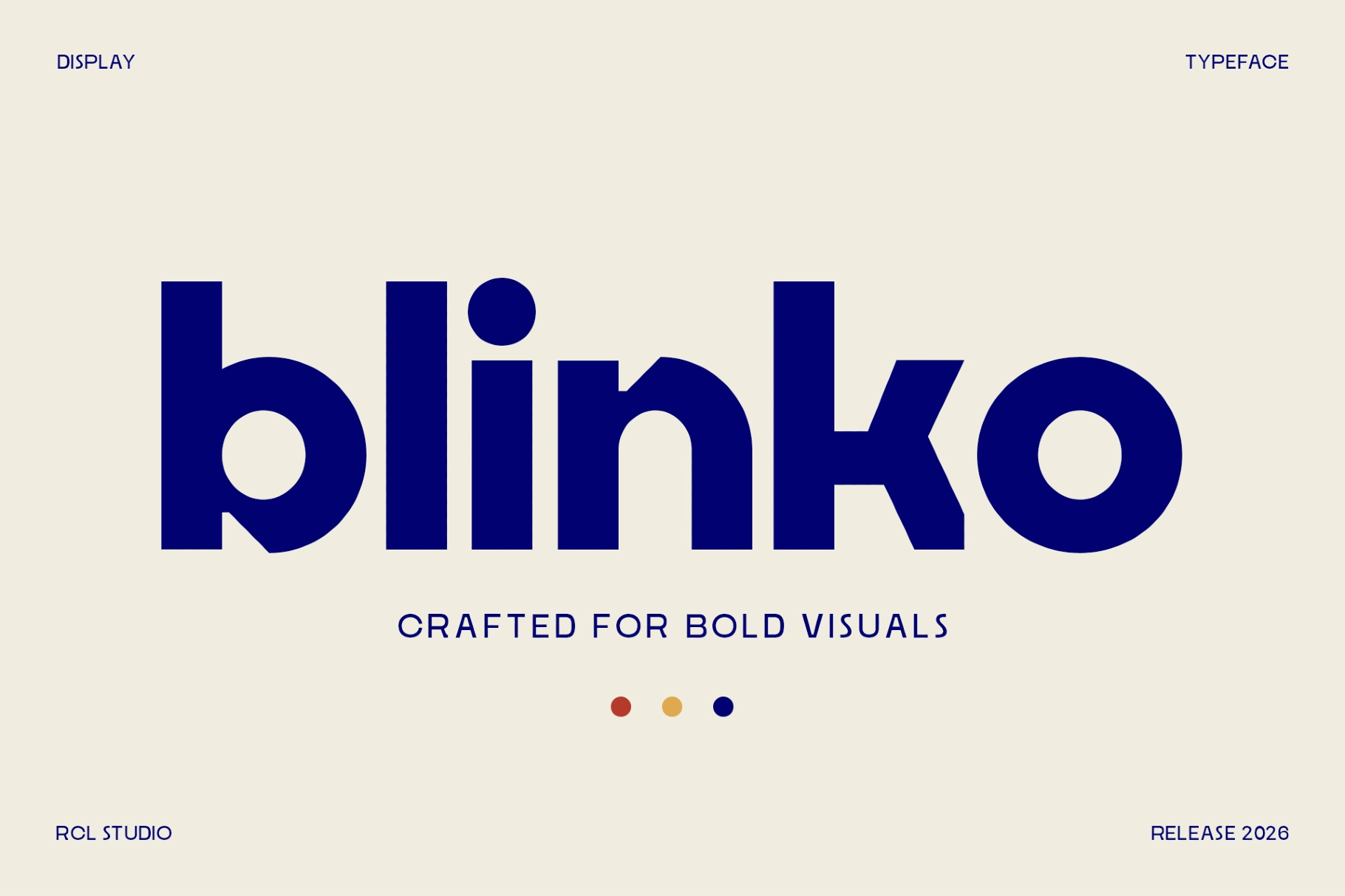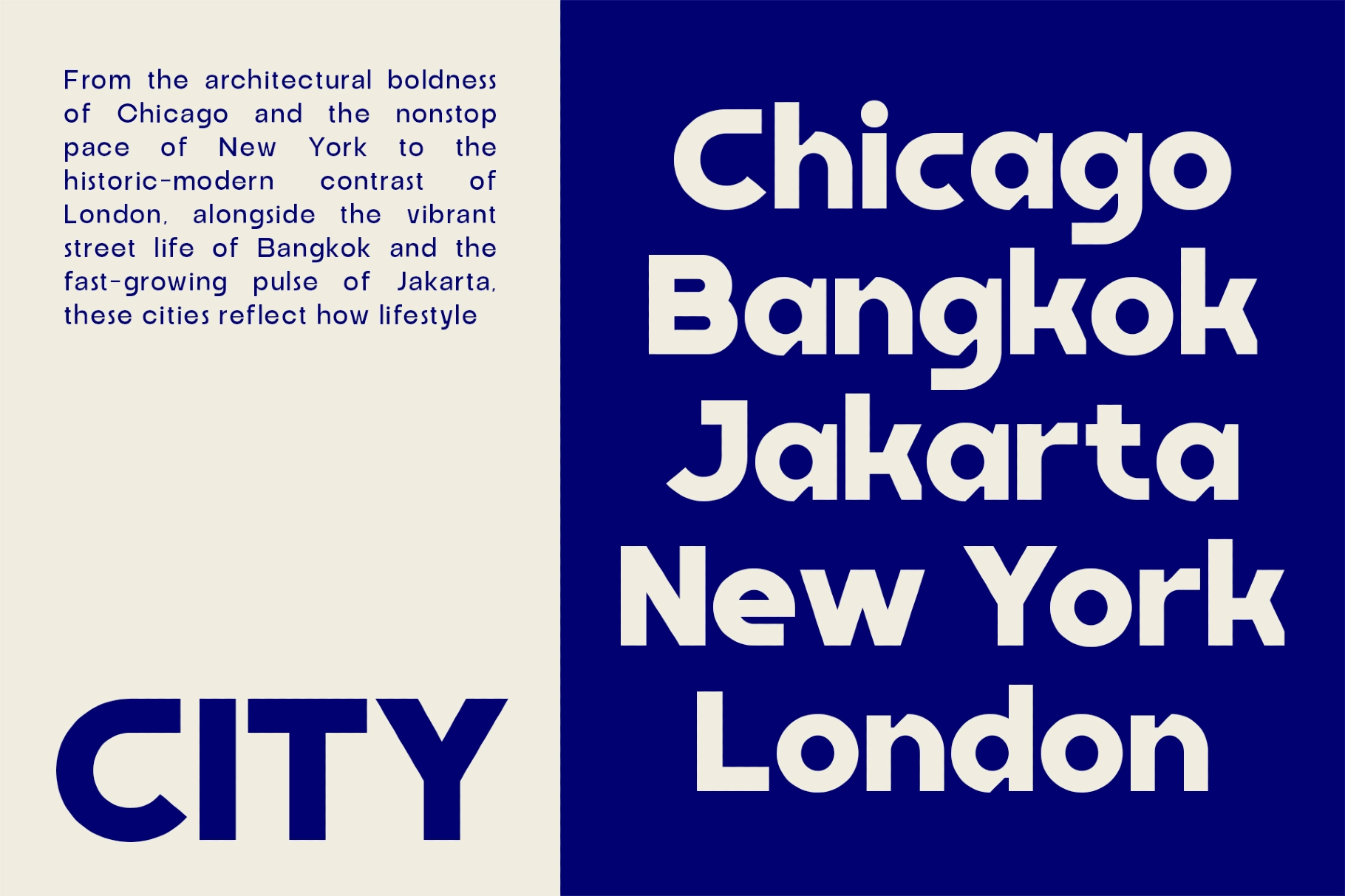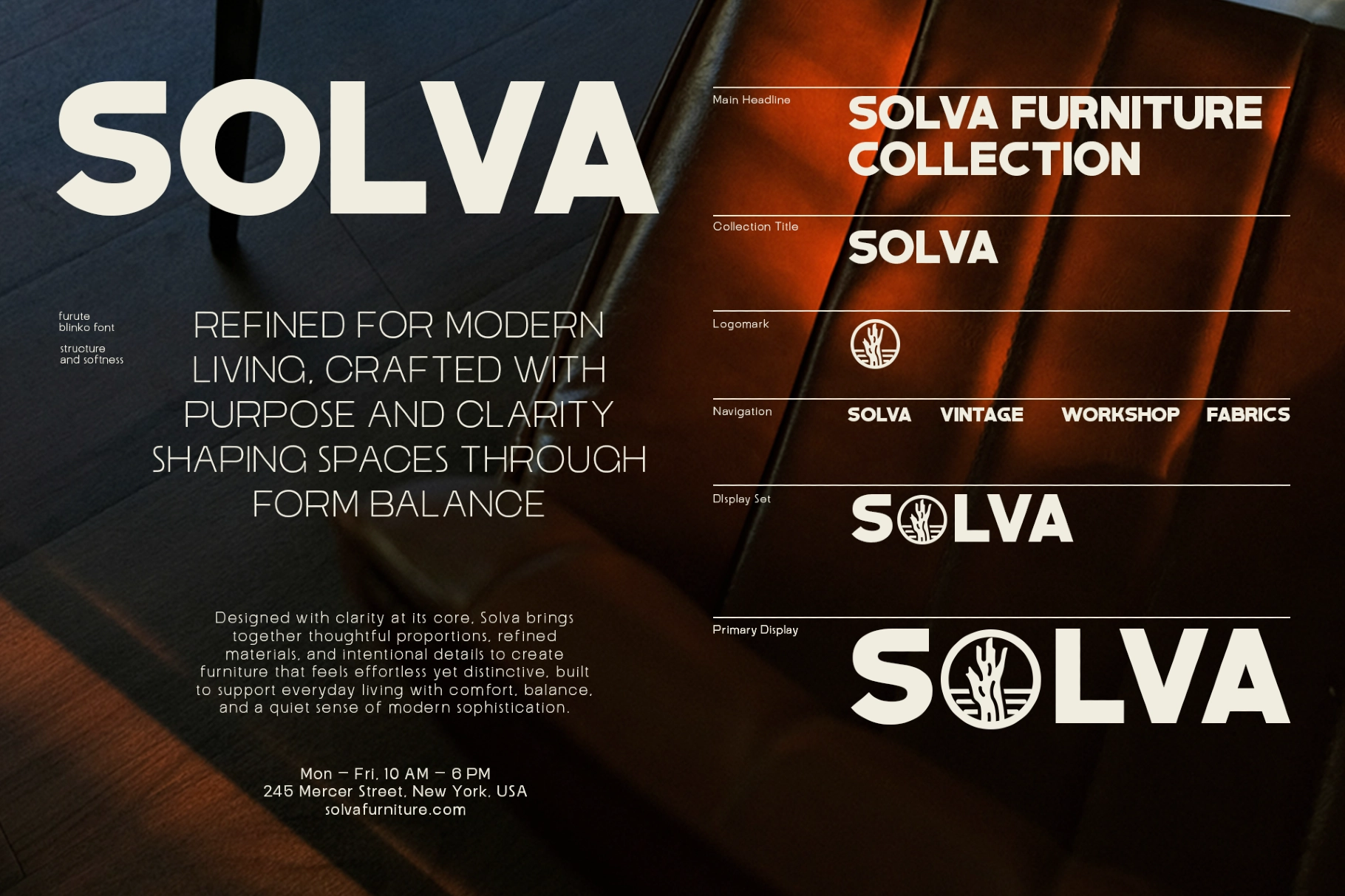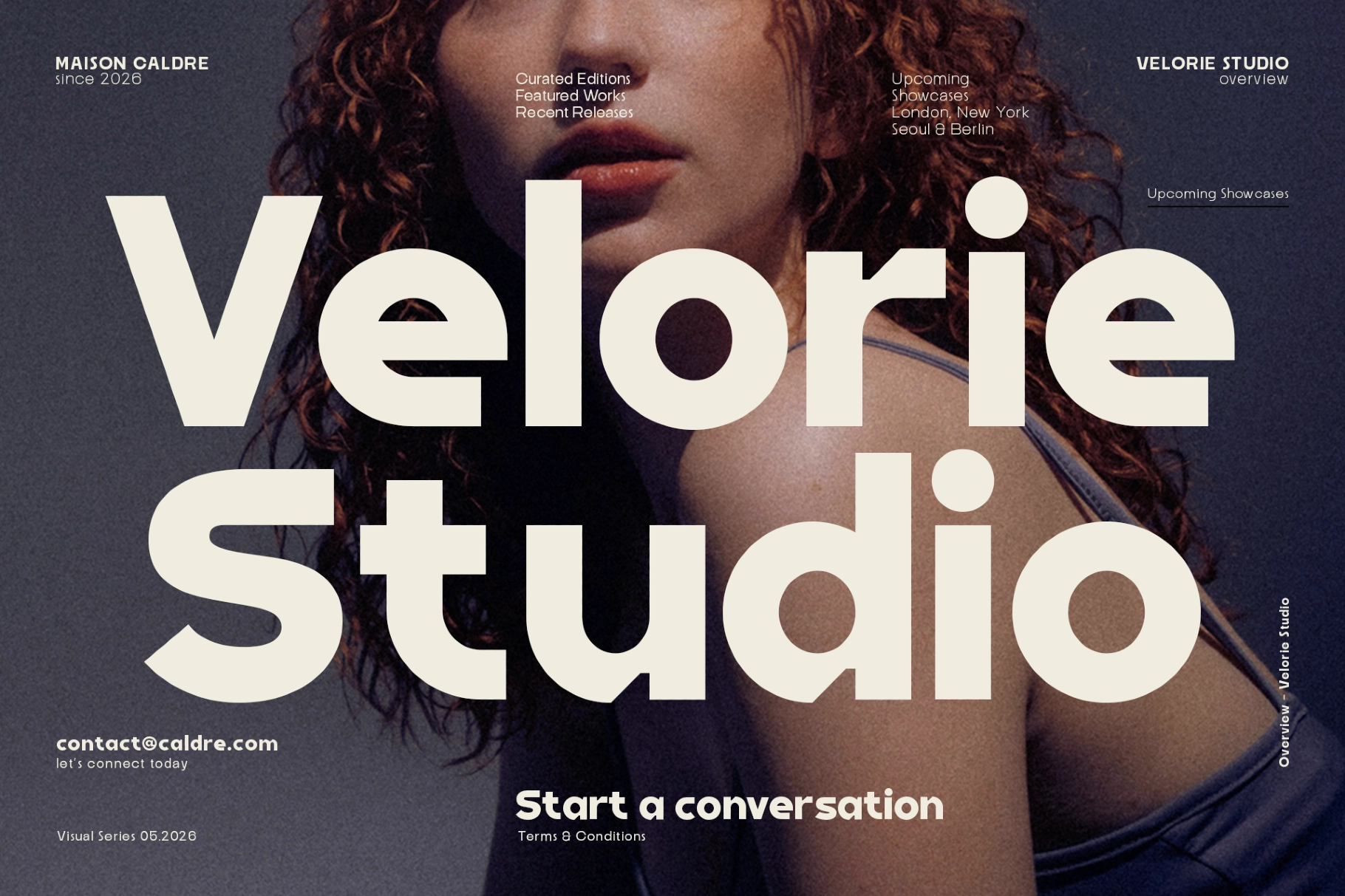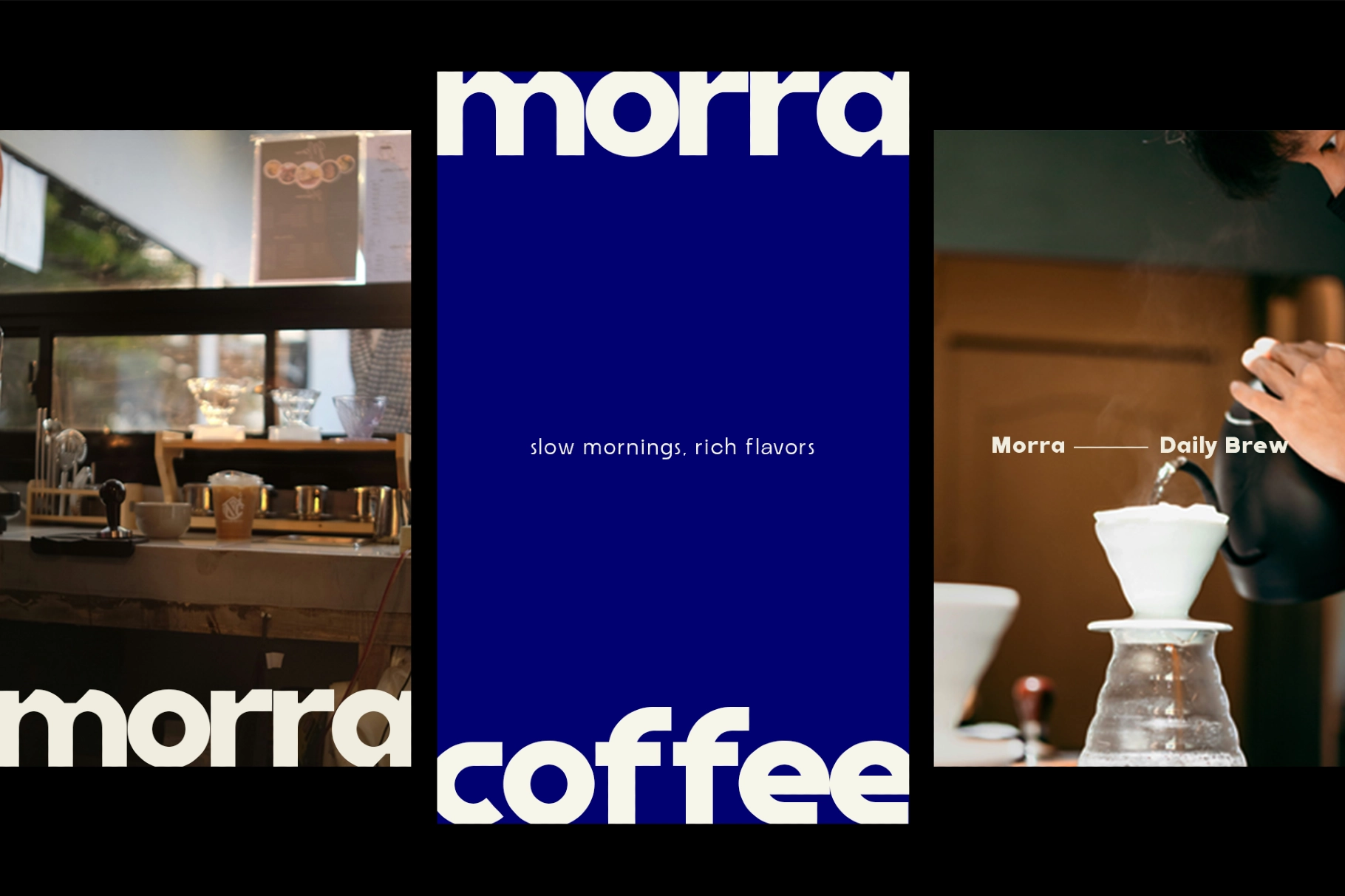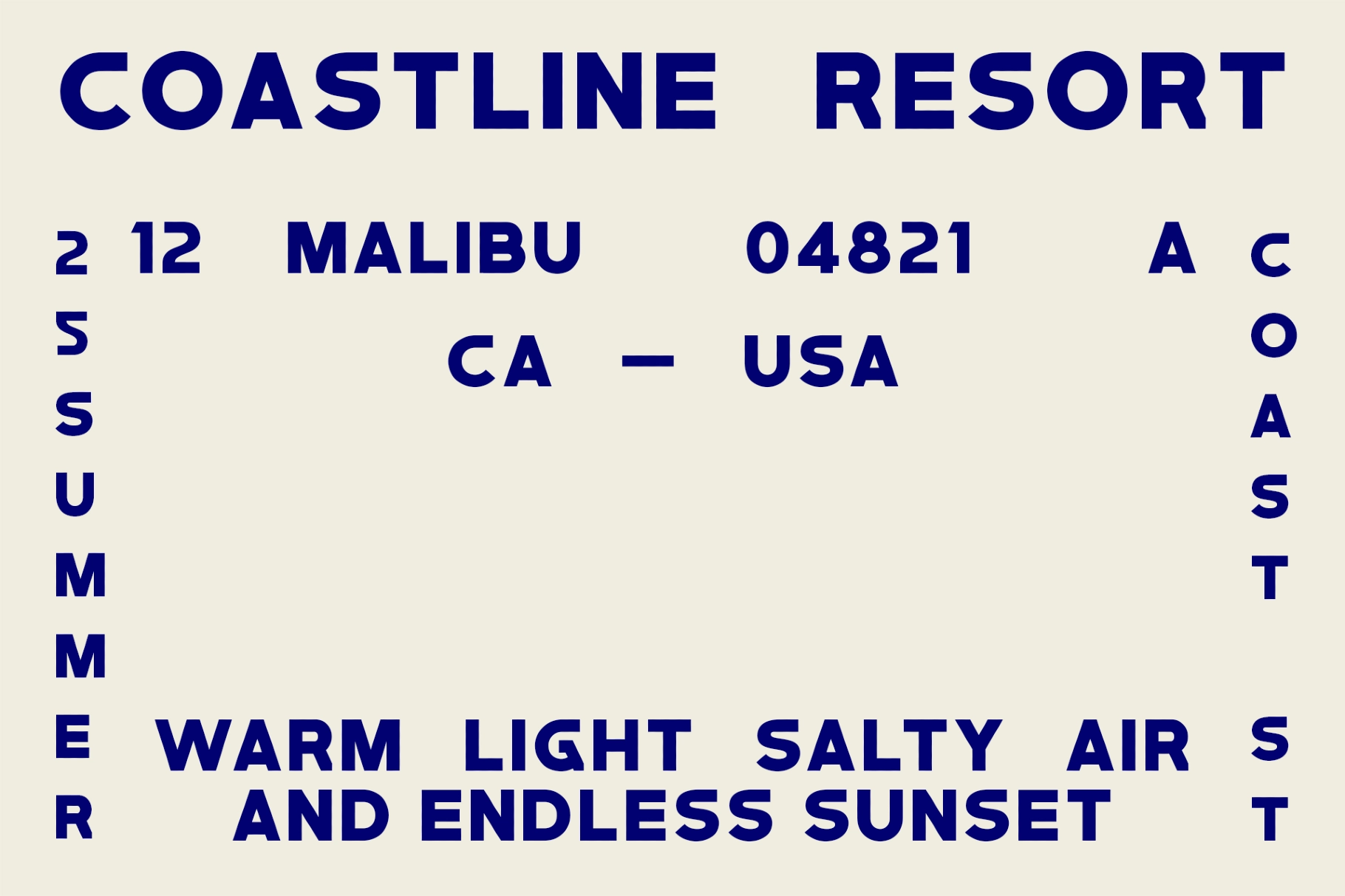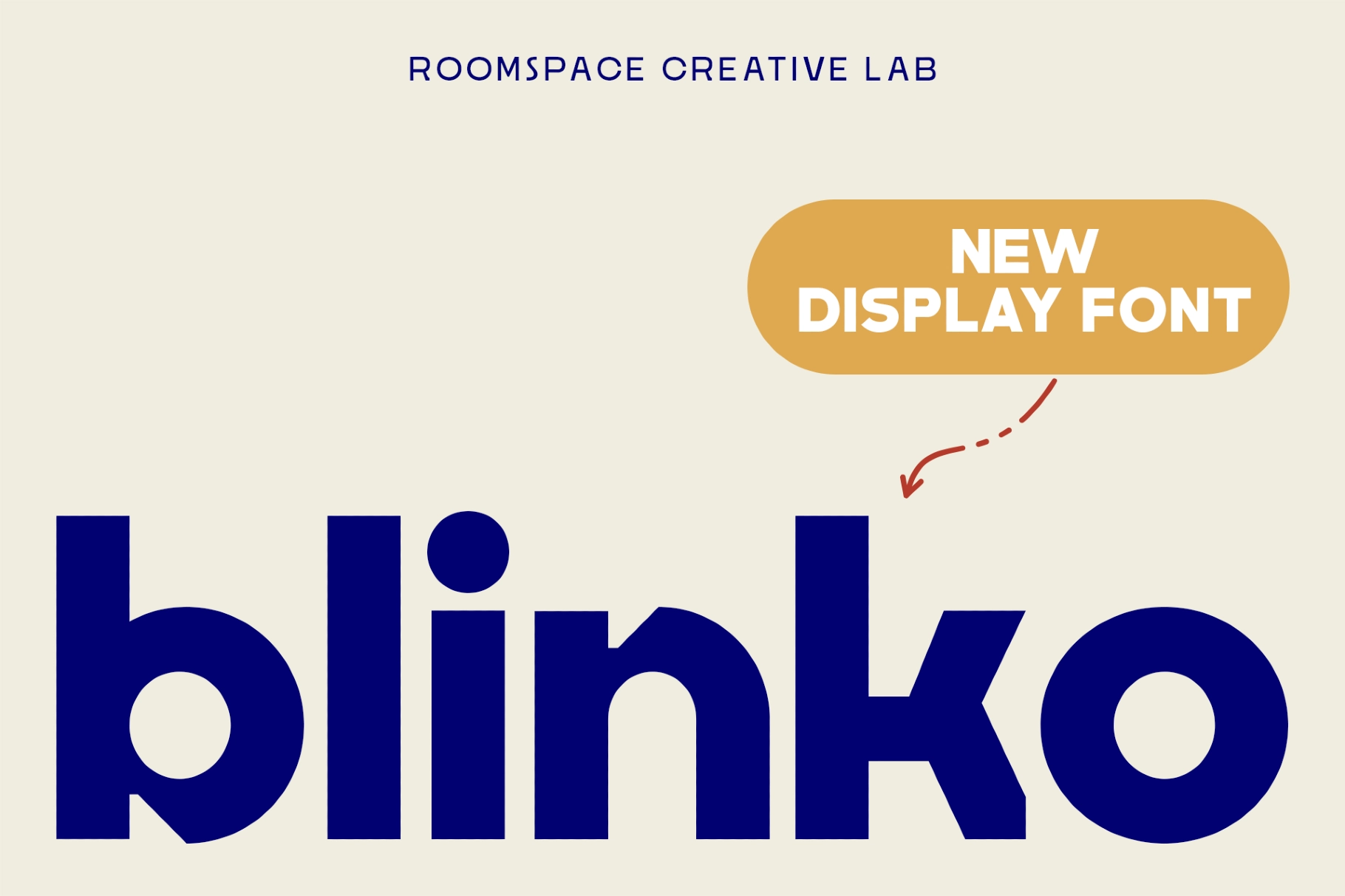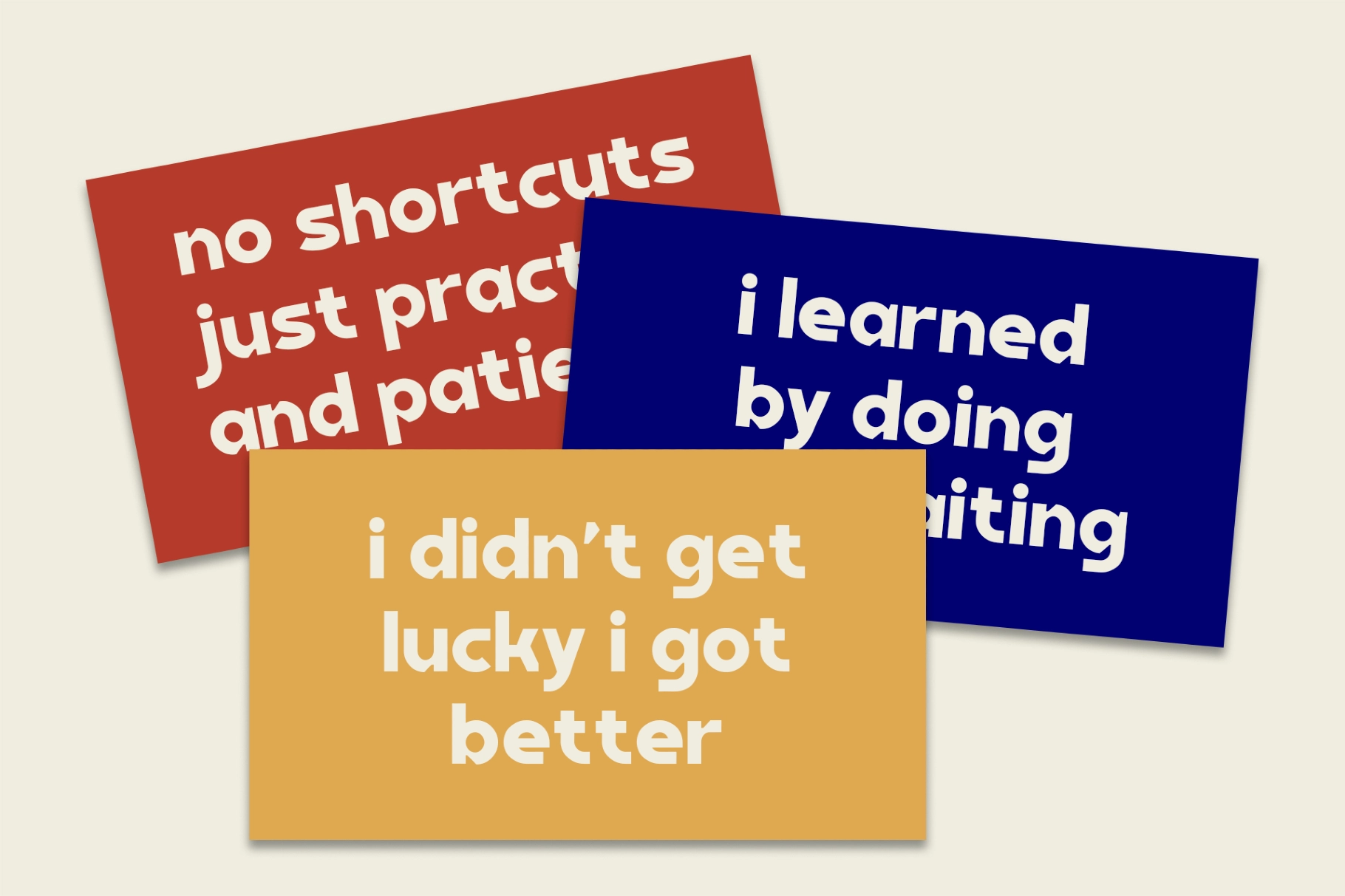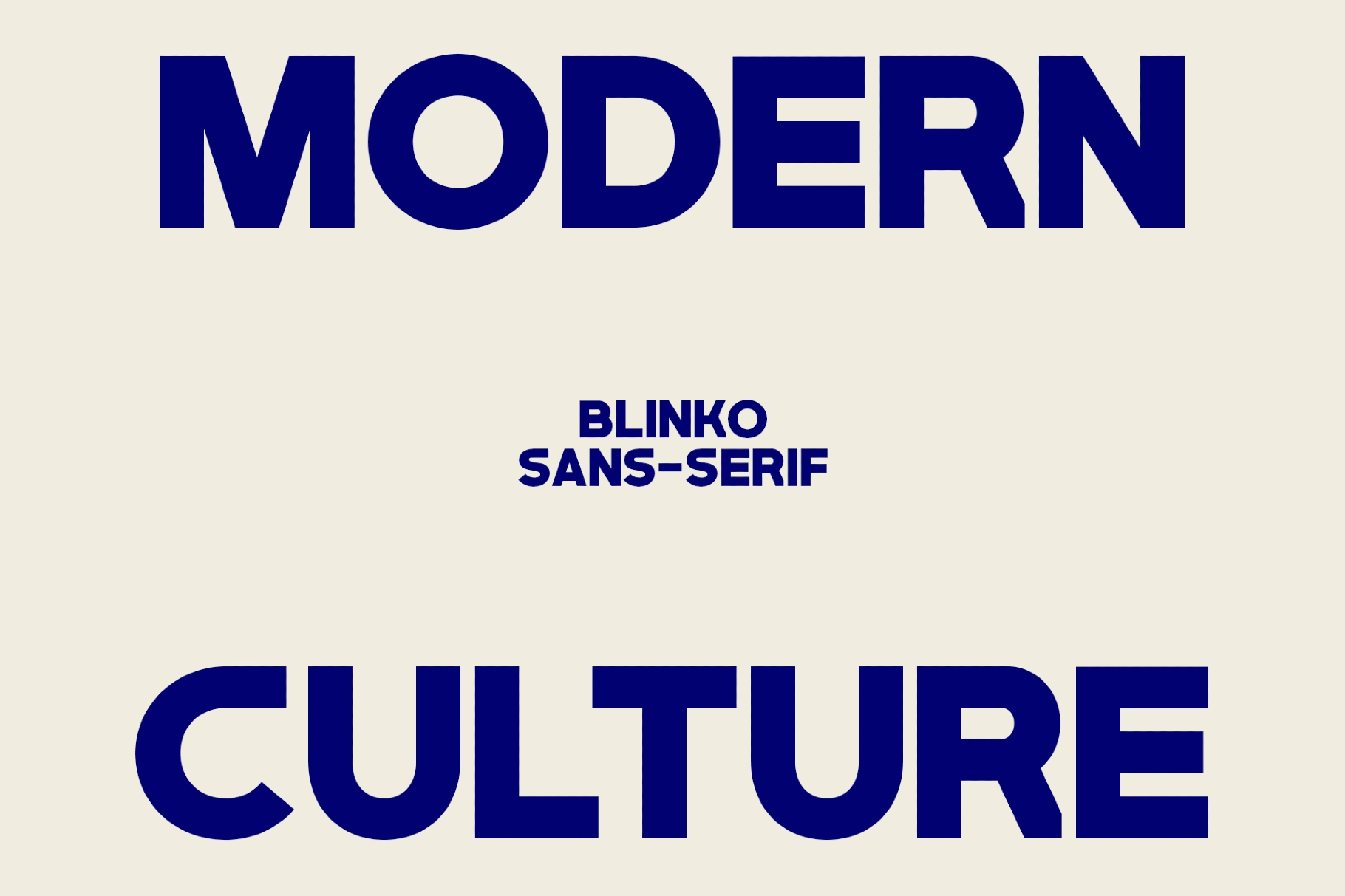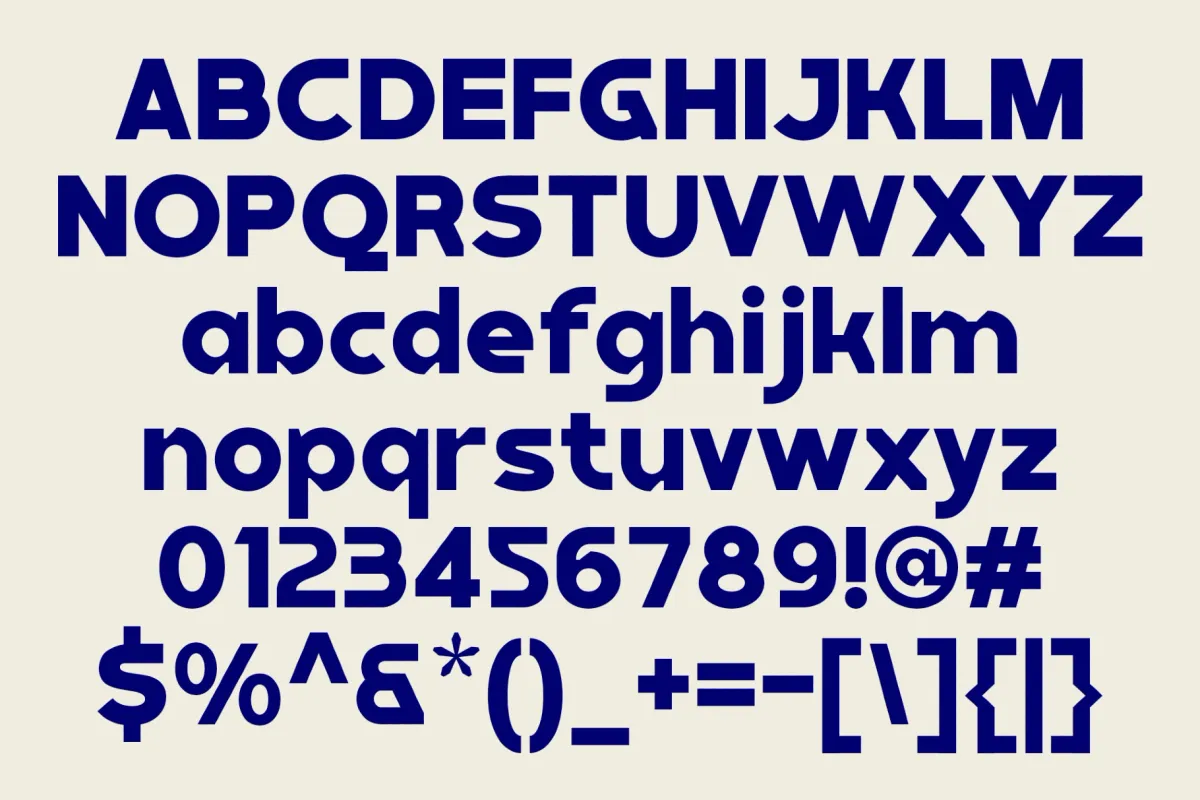
Blinko – Bold Modern Sans Serif Font
Heavy, rounded, and cleanly spaced, this sans serif typeface is made for big words with a friendly punch. Its thick geometry, soft corners, and compact rhythm give headlines a confident look that works well across posters, packaging, social graphics, and brand systems.
Blinko is suited for logo design, startup branding, café menus, streetwear graphics, event posters, app headlines, quote cards, product packaging, editorial titles, campaign visuals, stickers, signage, and more. Regular, oblique, and outline styles give designers practical range for bold title systems and playful typographic contrast.